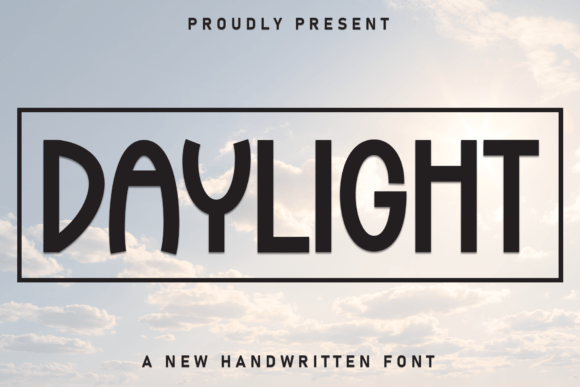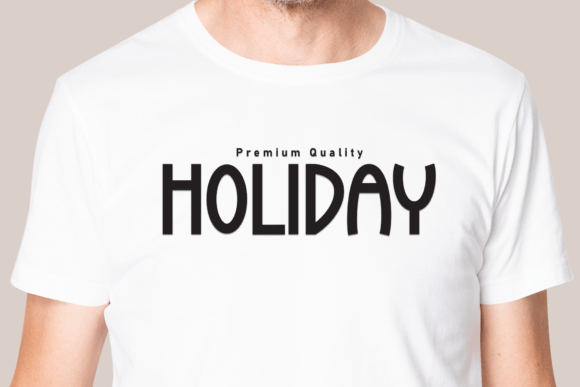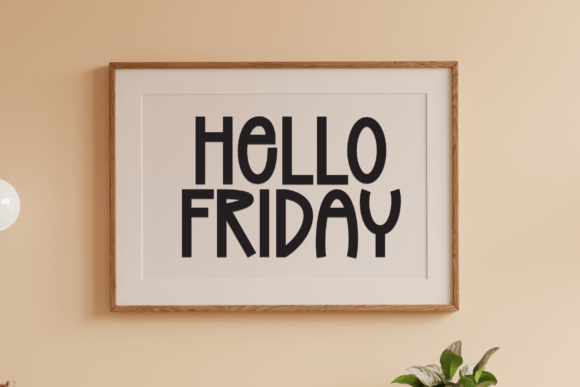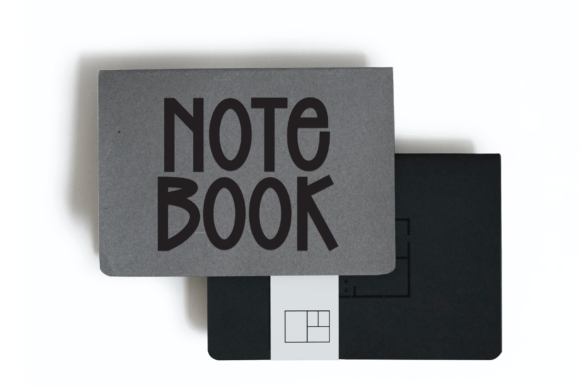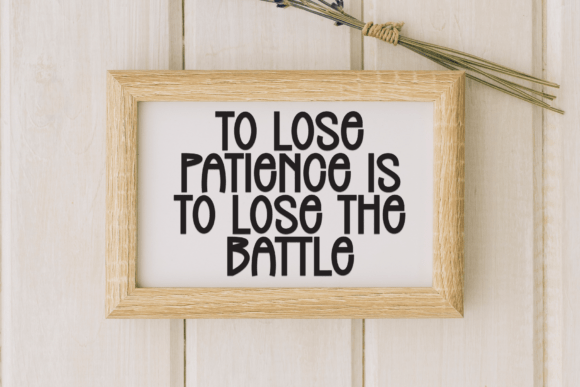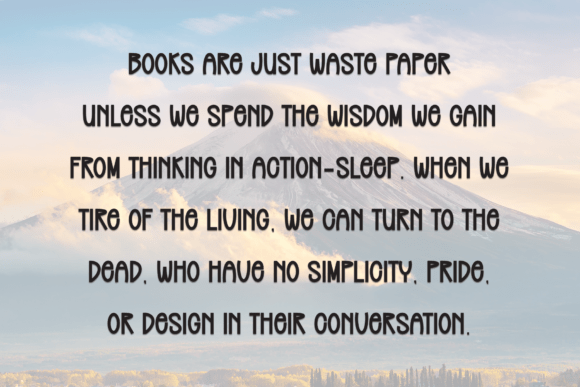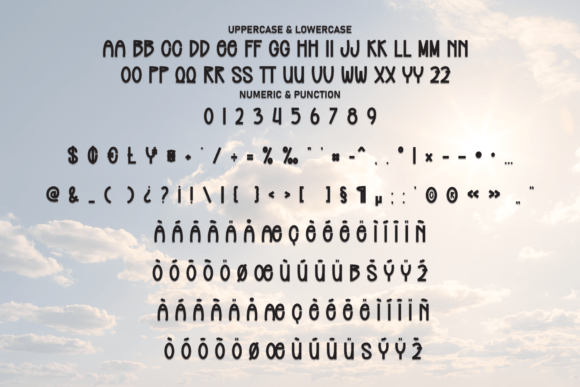
Unlock the Magic of Daylight Font
As a designer, have you ever found yourself stuck in a creative rut, searching for that perfect font to elevate your project? You know the moment – the cursor blinks, and suddenly, a spark of inspiration hits. You envision a beautiful wedding invitation, a heartfelt greeting card, or a whimsical social media post. This is where the Daylight Font comes in – a handcrafted display font that will transport your designs to a world of allure and liveliness.
The Daylight Font is more than just a font – it’s a key to unlocking your creativity and injecting a splash of fancifulness into your designs. With its irresistible appeal and visually stunning design, it’s an unparalleled option for adding elegance and sophistication to your projects. Whether you’re a seasoned designer or just starting out, the Daylight Font is a valuable addition to your toolkit, waiting to help you craft something truly special.
Daylight Font Key Features
- Unique Characteristics: Daylight Font features a unique blend of modern and minimalist design elements, with clean lines, geometric shapes, and a limited color palette.
- Weight and Style Options: Daylight Font is available in 6 weights (Light, Regular, Medium, Demi, Bold, and Black) and 3 styles (Upright, Italic, and Condensed), offering users a high degree of flexibility.
- Scalability and Legibility: The font is designed to be highly scalable and legible, making it suitable for use in a wide range of applications, from body text to display headlines.
Daylight Font Review
Daylight Font is a clean, modern sans-serif typeface that I’ve had the pleasure of working with. Here’s what I think.
- Daylight’s simplicity makes it easy to read in various contexts, from digital screens to print materials.
- The font’s high x-height and geometric shapes create a sense of balance and visual harmony.
- Daylight is highly legible, making it suitable for body text and headings alike.
- Daylight’s uniformity can sometimes make it feel generic or unoriginal.
- The font may not be the best choice for projects requiring a high level of emotional expression or drama.
- Daylight can appear too plain in situations where a more distinctive or ornate font is desired.
Overall, Daylight Font is a solid, versatile choice for designers who value simplicity and readability. While it may not be the most exciting or attention-grabbing option, it gets the job done with ease. With the right context and application, Daylight can be a reliable workhorse in a designer’s toolkit.
Tips for Getting the Most Out of Daylight Font
Here are some tips for getting the most out of the Daylight Font:
– Use the Daylight Font for headings and titles to create a clean and modern look.
– Pair the Daylight Font with other sans-serif fonts to create a balanced design.
– Experiment with different font sizes and styles to create visual interest.
Some common use cases for the Daylight Font include:
– Creating modern and clean designs for business cards, brochures, and other marketing materials.
– Designing websites and web applications with a clean and modern aesthetic.
– Creating presentations and documents with a professional and polished look.